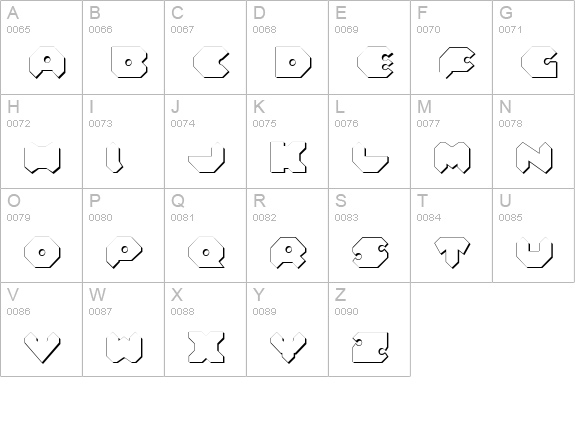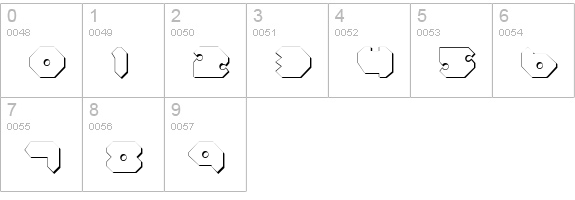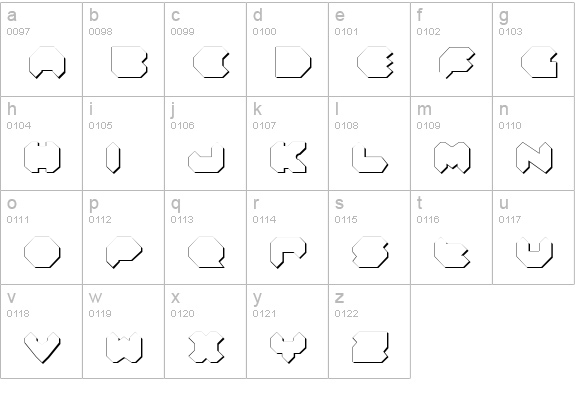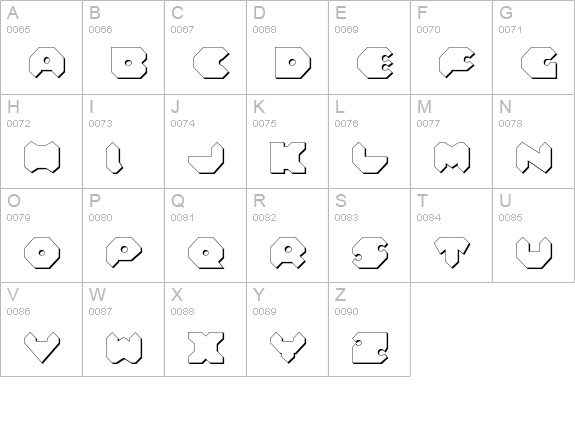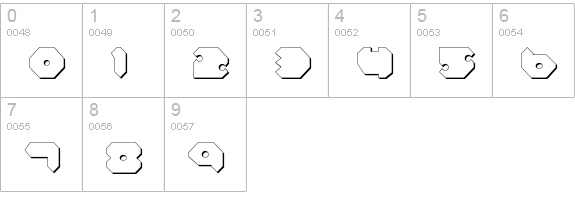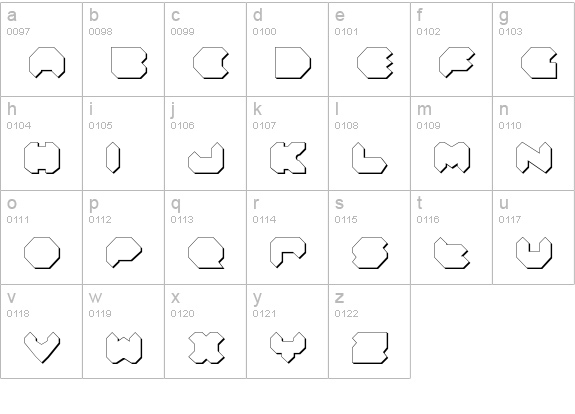
Feldercarb Shadow Font Details
Feldercarb Shadow font is a striking and bold typeface that exudes a sense of strength and modernity. With its sharp edges and sleek design, this font is perfect for creating eye-catching headlines, titles, and logos. The unique shadow effect adds depth and dimension to your text, making it stand out and grab attention. What's even better is that Feldercarb Shadow font is completely free to download at FontsMarket.com. This means you can easily access this stylish font and use it in your projects without any cost. Whether you're designing posters, social media graphics, or branding materials, Feldercarb Shadow font will add a touch of sophistication and flair to your work. Don't miss out on this fantastic opportunity to enhance your designs with this fantastic font – download it for free today at FontsMarket.com!